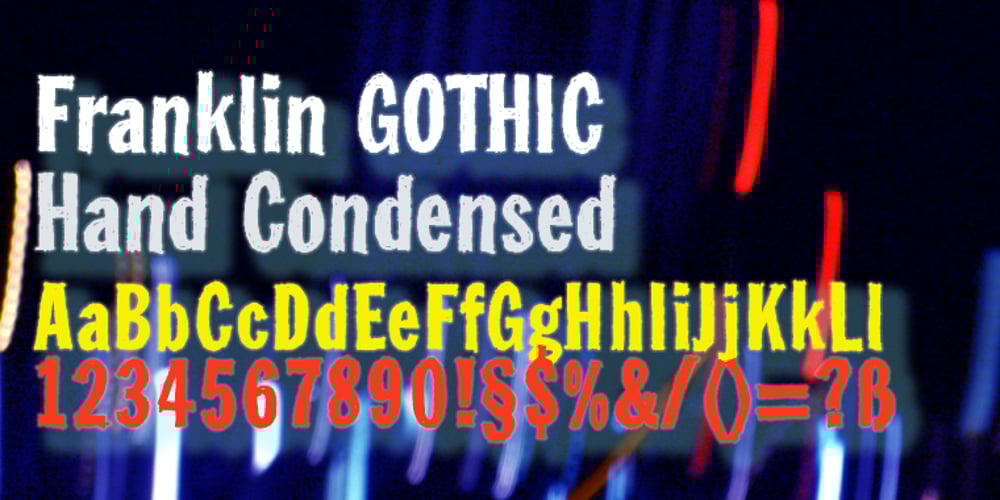
FranklinGothicHandCond Font Family was designed by Gert Wiescher and published by Wiescher Design. FranklinGothicHandCond contains 1 styles and family package options. FranklinGothicHandCond is another part of a series of hand-drawn fonts from way back in time – before computers changed the way we worked in advertising. When I was in advertising – before computers – a very time consuming part of my daily work was sketching headlines. I used to be able to sketch headlines in Franklin Gothic, Times, Futura, Helvetica and several scripts. We had a kind of huge inverted camera – which we called Lucy. We projected the alphabet onto a sheet of transparent paper, outlined the letters with a fineliner and then filled them in. It was very tedious work, but the resulting headline had its own charm and we had a permanent race going on who was best and fastest. I won most of the time! They used to call me the fastest “Magic Marker” this side of the Atlantic. Great days, just like today! Your sentimental type designer from the past, Gert Wiescher.